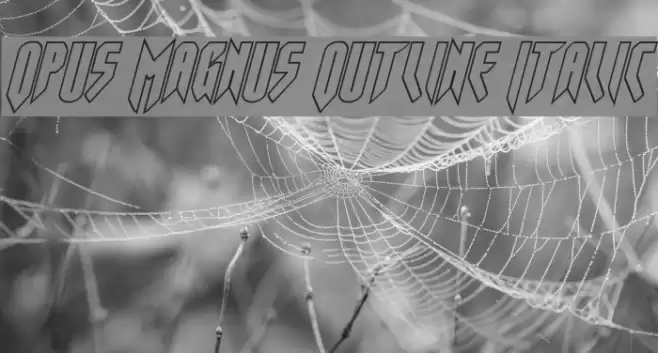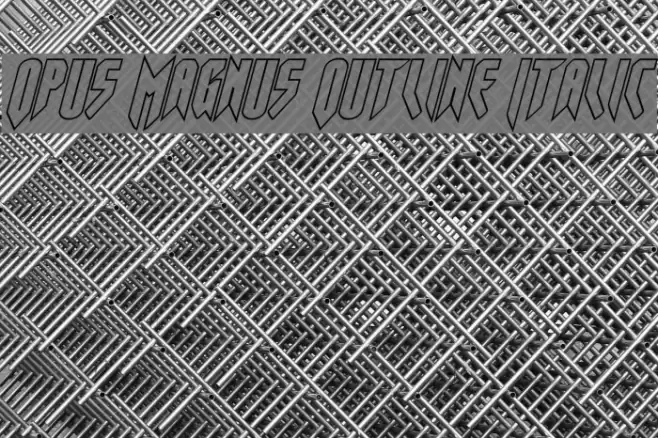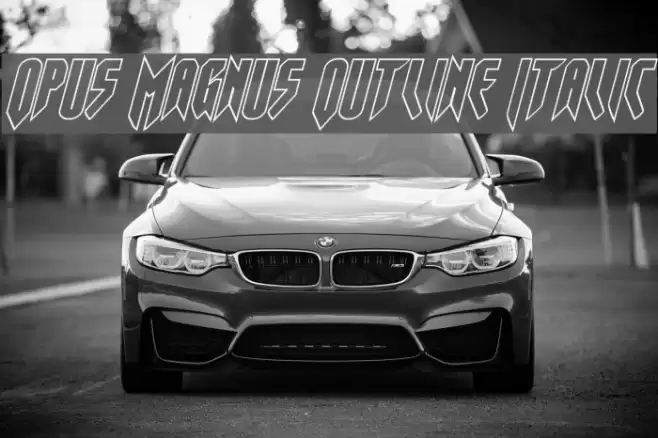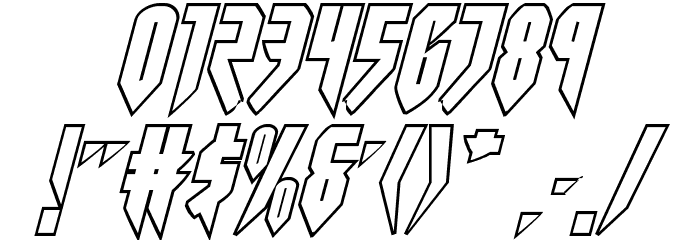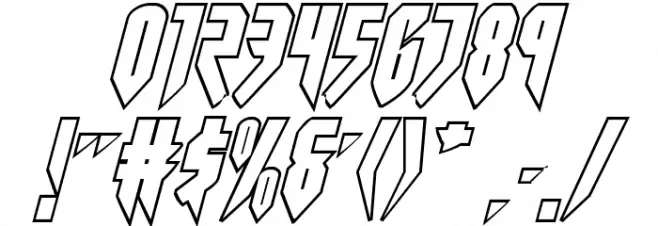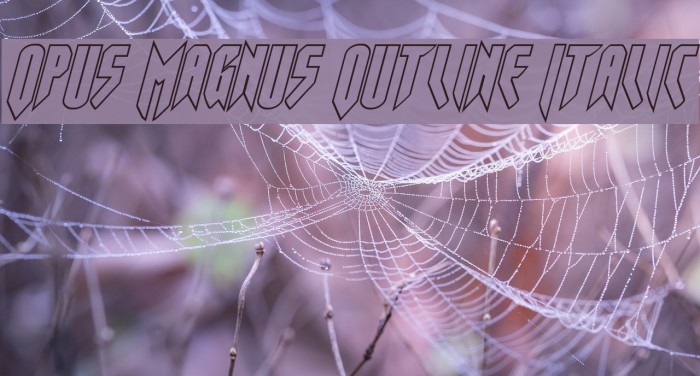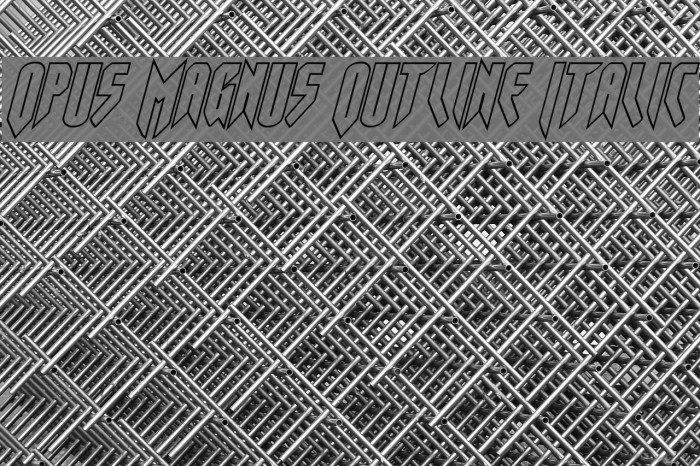
Opus Magnus Outline Italic Font
Opus Magnus Outline Italic Description
This font features a bold, angular design with an outline style that gives it a striking and dynamic appearance. The characters are sharply defined with a futuristic and edgy aesthetic, making it stand out in any design. The italic slant adds a sense of motion and energy, enhancing its modern appeal. Each letter is crafted with precision, maintaining a consistent geometric form that is both eye-catching and legible. The font's unique style is perfect for creating impactful headlines, logos, and posters where a bold statement is desired.
A bold, angular outline font with a futuristic and dynamic italic style from Uncategorized fonts.
- Proposed Projects: Ideal for use in sci-fi themed designs, video game titles, movie posters, and branding projects that require a modern and edgy look.